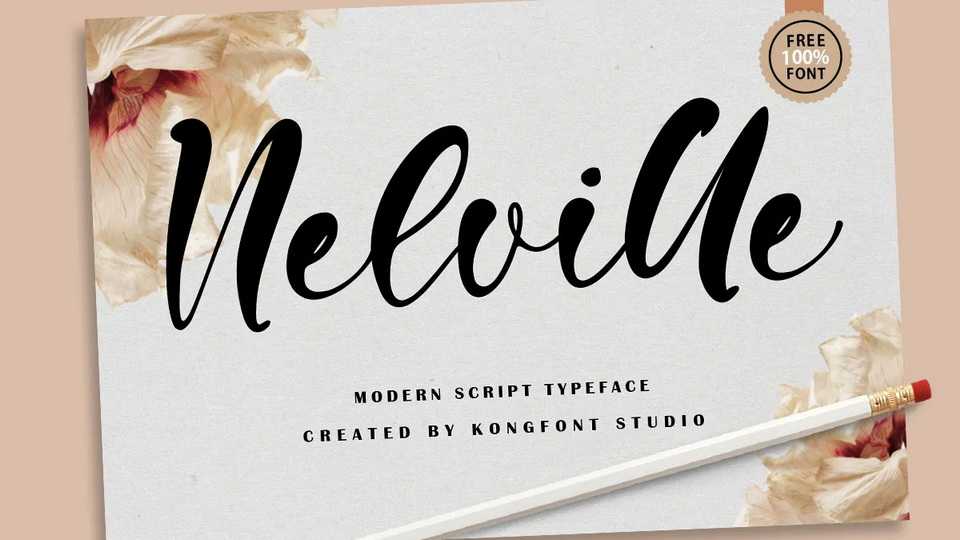
Download Nelville font, a modern and beautiful handwritten script typeface. Nelville works great on various designs that require a relaxed and attractive touch.
Designer: Kong Font Studio